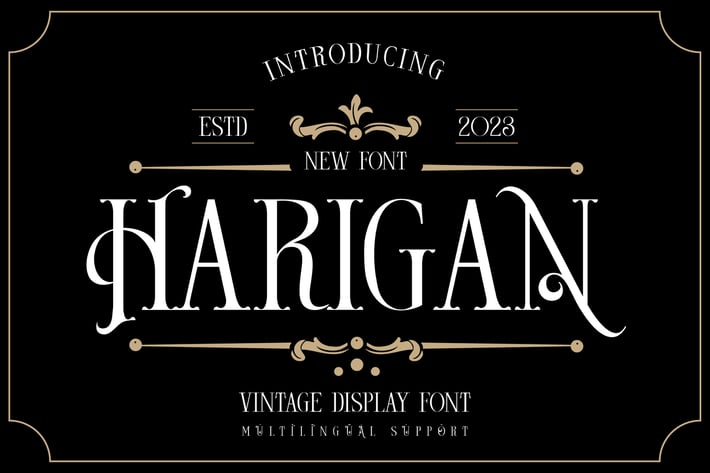
Harigan - Vintage Display Font
Harigan is a bold and captivating vintage display font that exudes old-world charm and retro elegance. With its classic design and eye-catching letterforms, Harigan is perfect for posters, logos, packaging, and branding that need a nostalgic, timeless feel. This typeface brings a sense of history and refinement to any project, making it ideal for vintage-inspired designs that demand attention. Harigan's striking presence and vintage flair make it a standout choice for creative work looking to evoke a sense of the past with a modern twist.